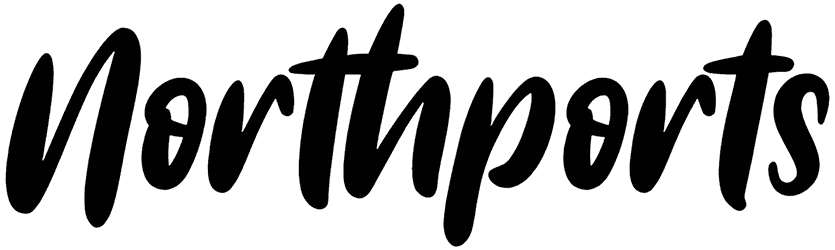
Northports Font
Time to get refreshed and cool with a sprightly face. This is Northports, a script font with soft and bold letterforms that can be set on many designs, such as banners, postcards, covers, and other items. Northports doesn’t support numbers and most of the punctuation, but is still one of the choices to create a striking vibe for your next project.